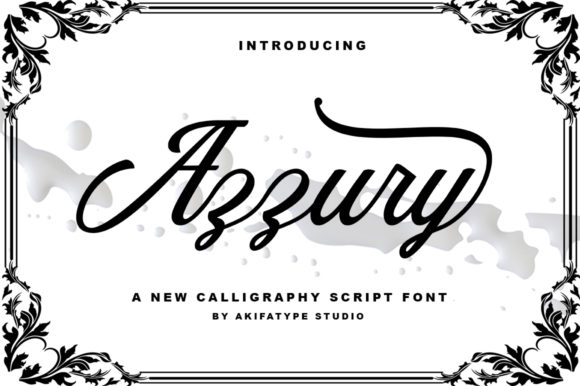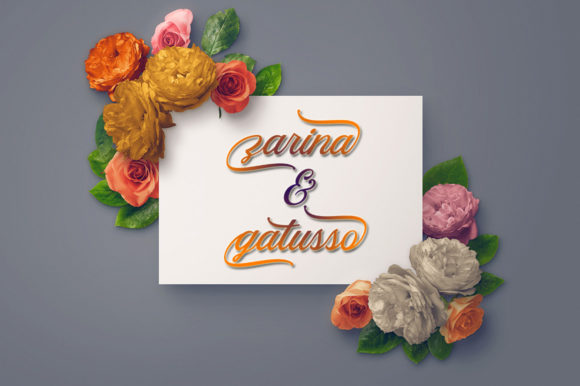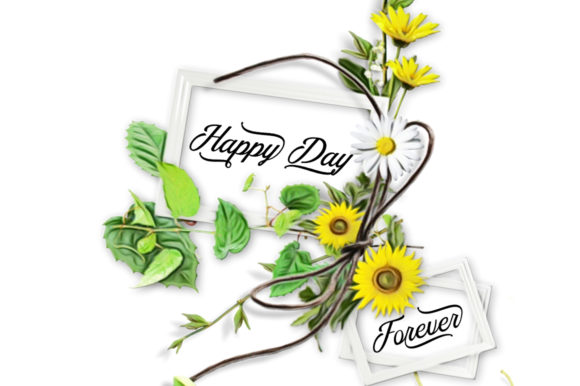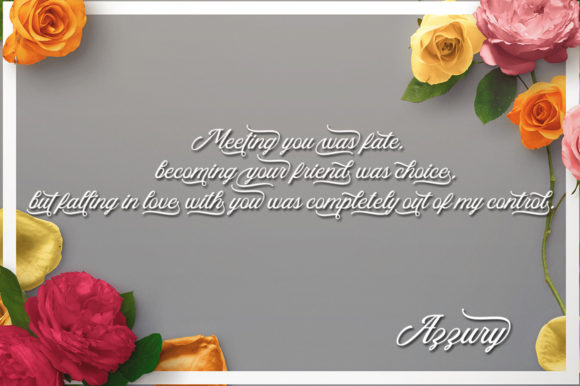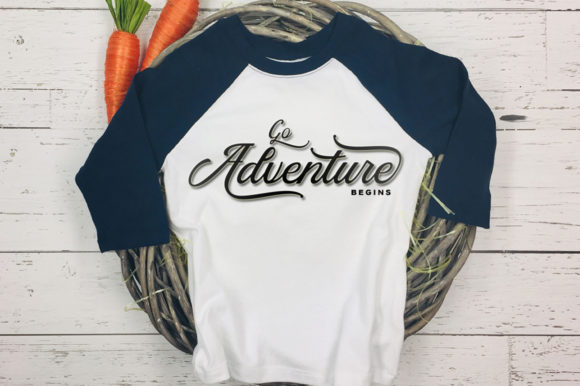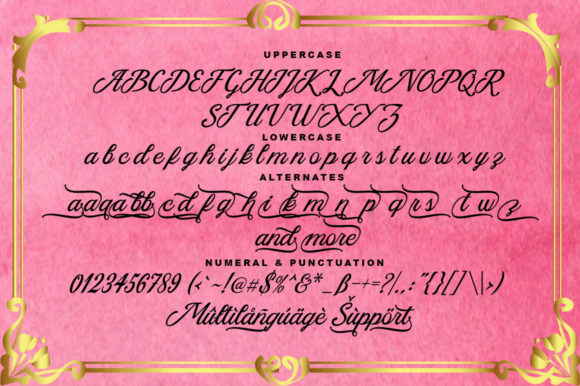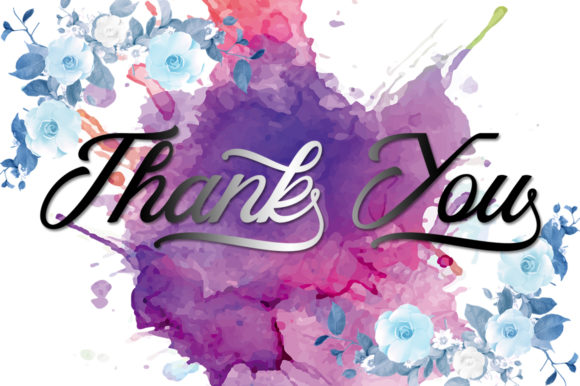
Azzury Font
Azzury is a beautiful and incredibly legible script. It’s ideal for a wide range of projects and is a great way to add a vintage style to your work.